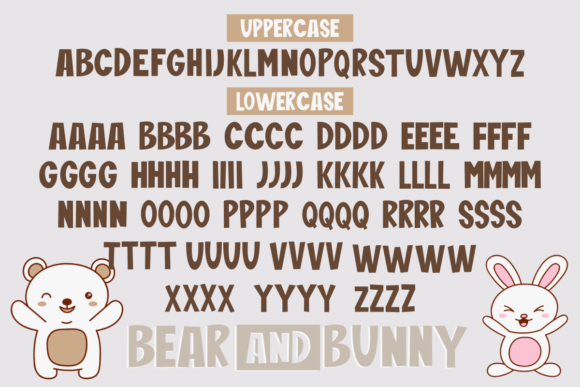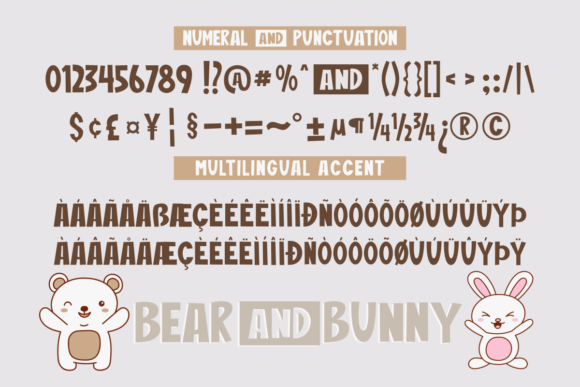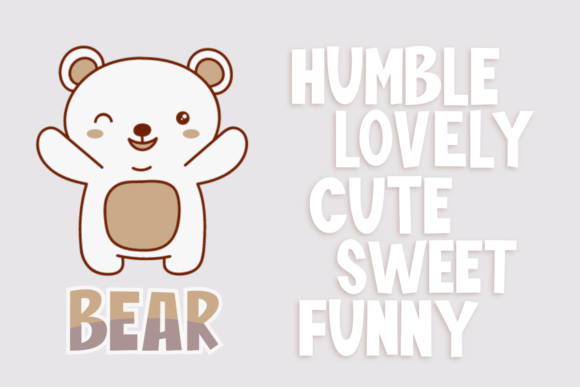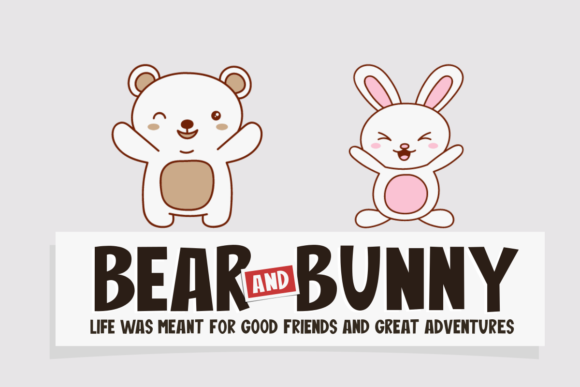
Introduction to Bear and Bunny Font
Bear and Bunny is a fun and cartoon like display font.
This font is perfect for children themed designs, especially when combined with bright colors .
Key Features of Bear and Bunny Font
Why Choose Bear and Bunny Font?